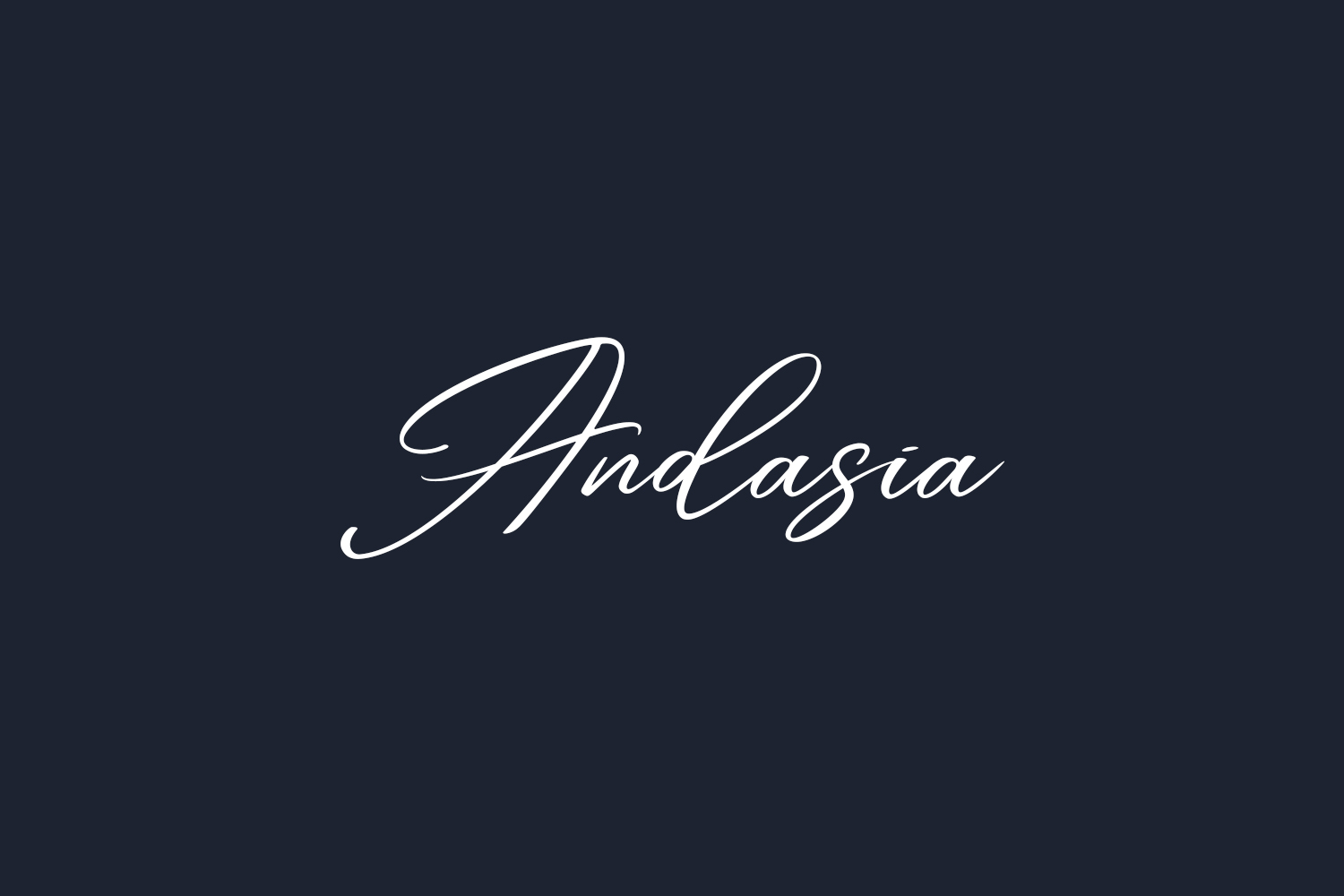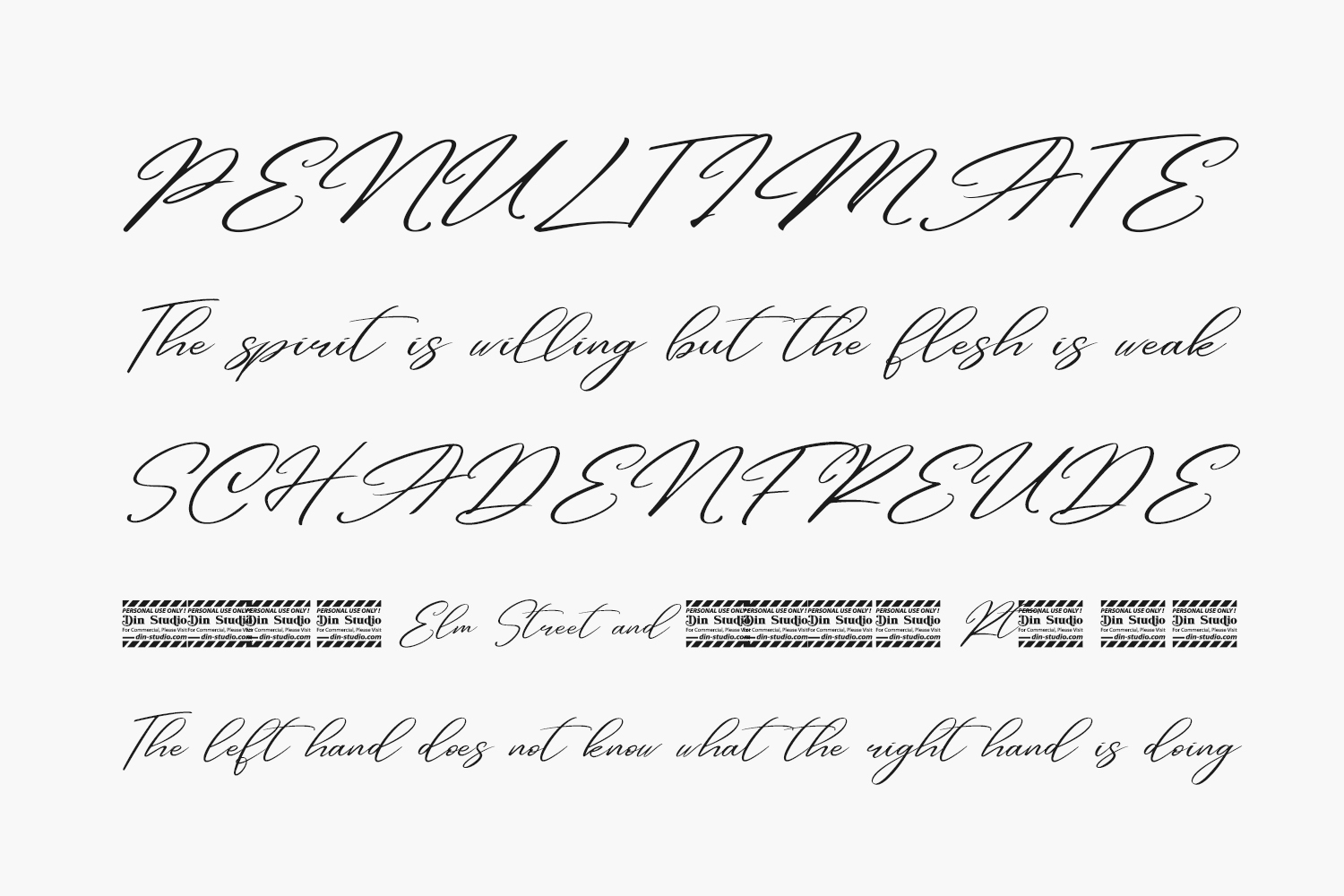
Andasia Free Font is a beautiful and calm handwritten font with a classic feel. Get inspired by its timeless appeal. Andasia Free Font was designed by Din Studio is a demo and free for personal use only. Please purchase the full version for commercial use.